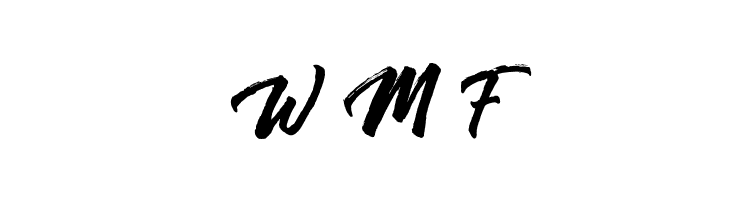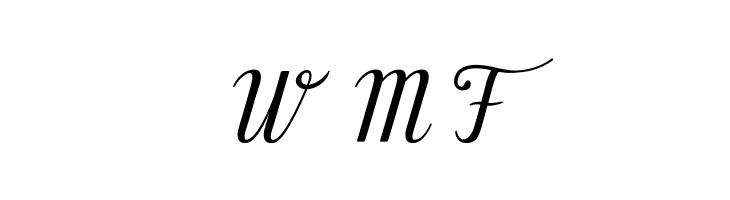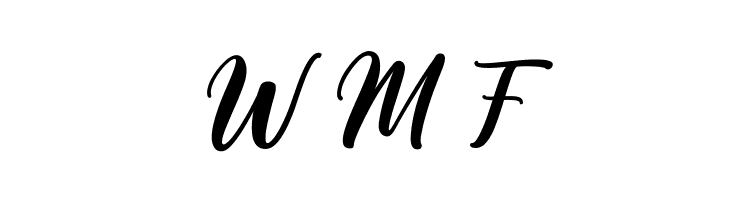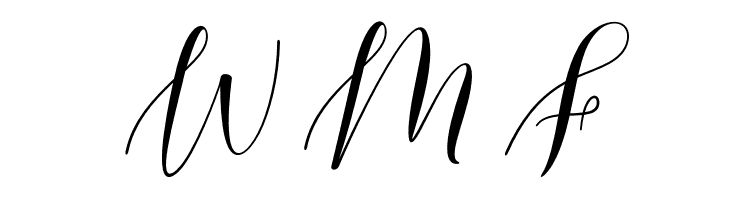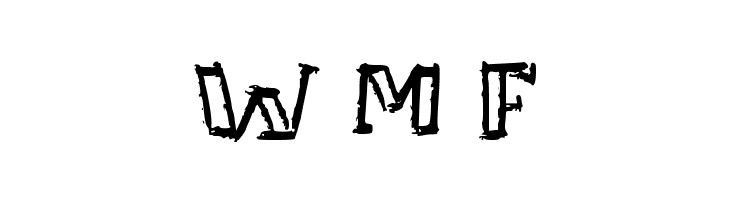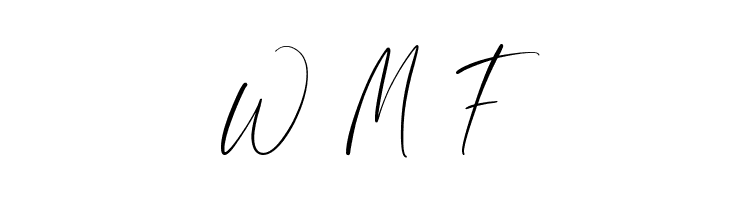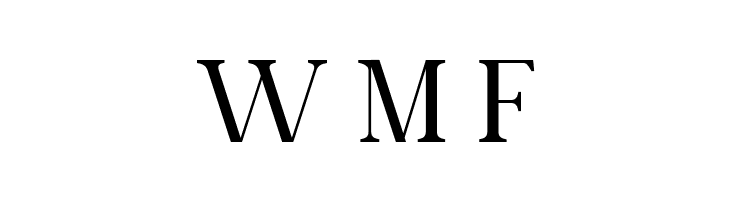
An elegant script font with flowing, cursive letters and artistic flair.
A fluid, cursive script font with a natural handwritten style.
A cursive, handwritten font with elegant, flowing strokes and dynamic contrast.
A bold, expressive handwritten font with dynamic brush strokes.
A bold, distressed font with a hand-drawn, grunge aesthetic.
A flowing, cursive font with a handwritten, elegant style.
A sophisticated, elegant script font with flowing, cursive letterforms.
A classic serif font with elegant strokes and a modern appeal.
An elegant, flowing script font with a classic, sophisticated appearance.
A bold, elegant cursive font with high contrast and flowing style.